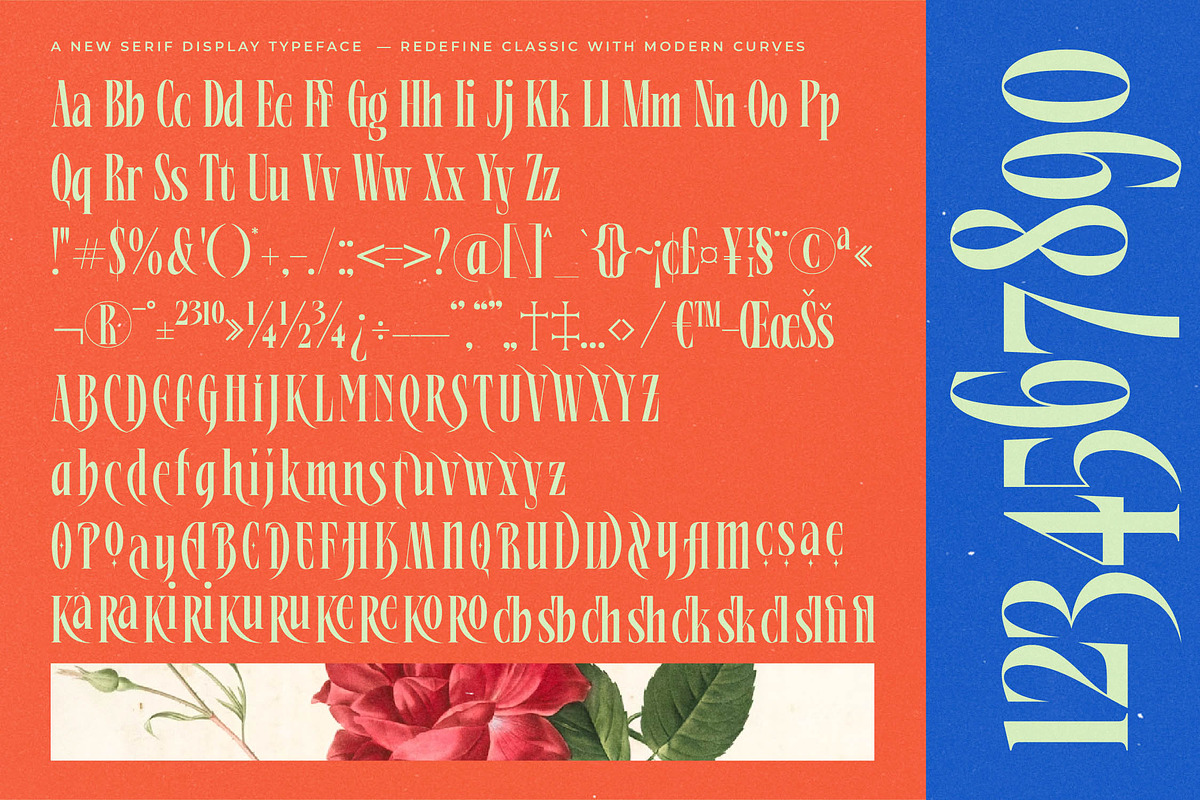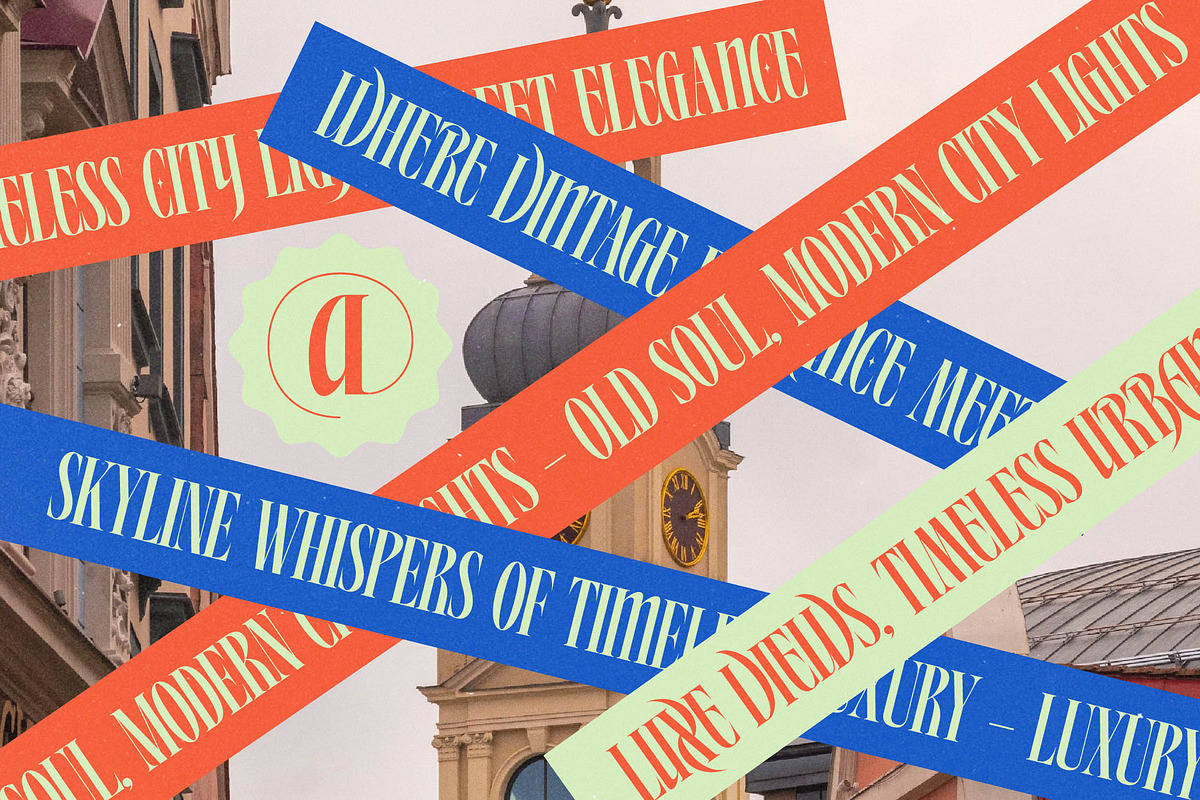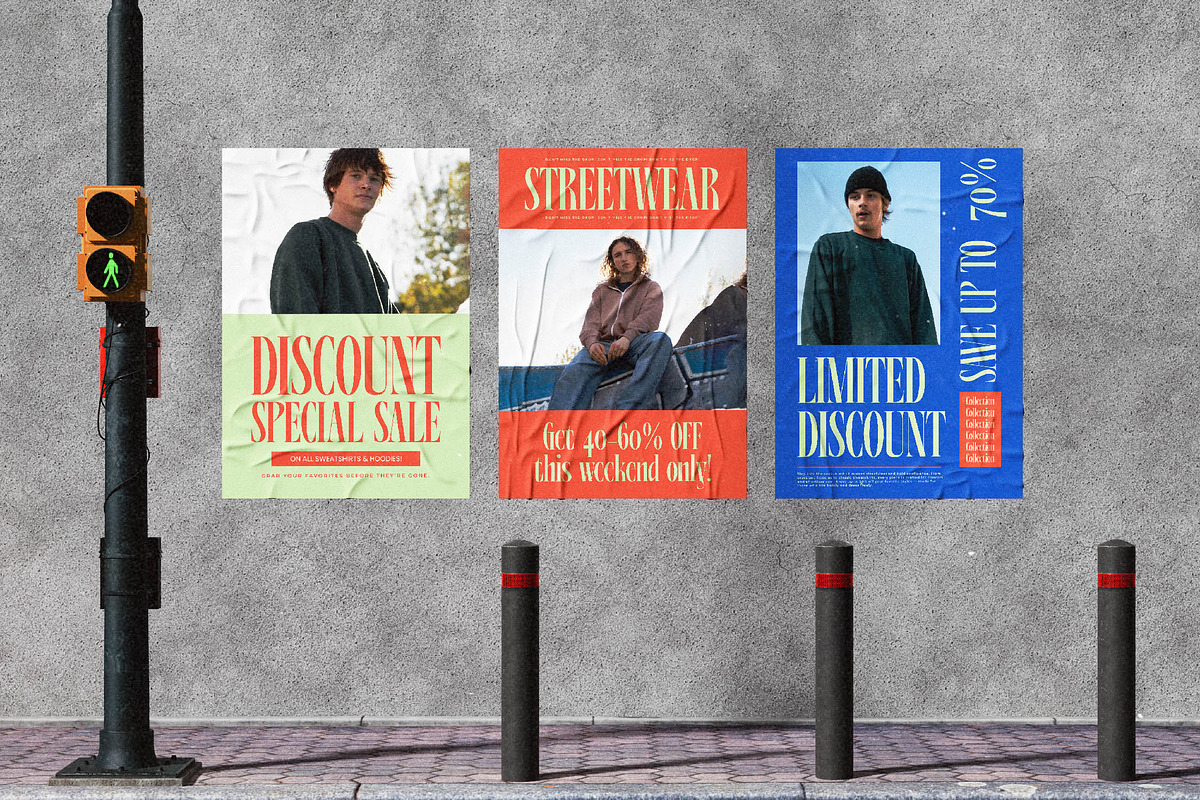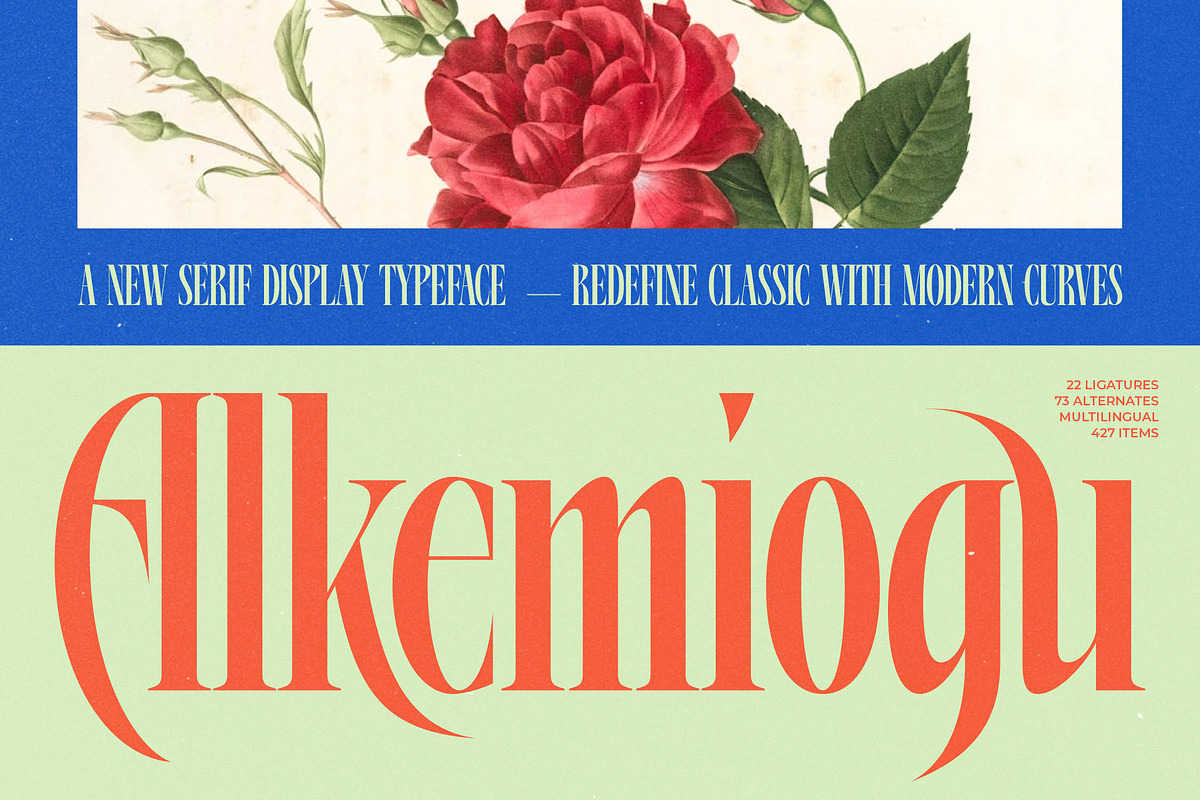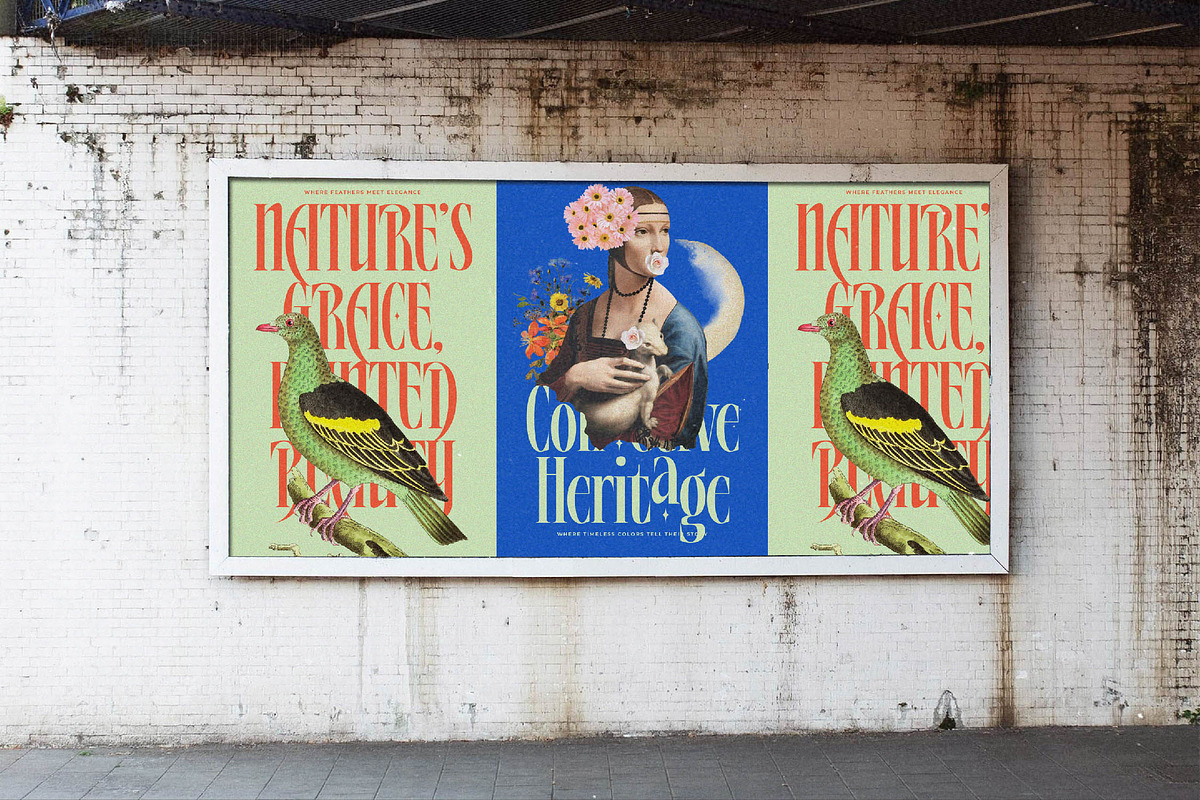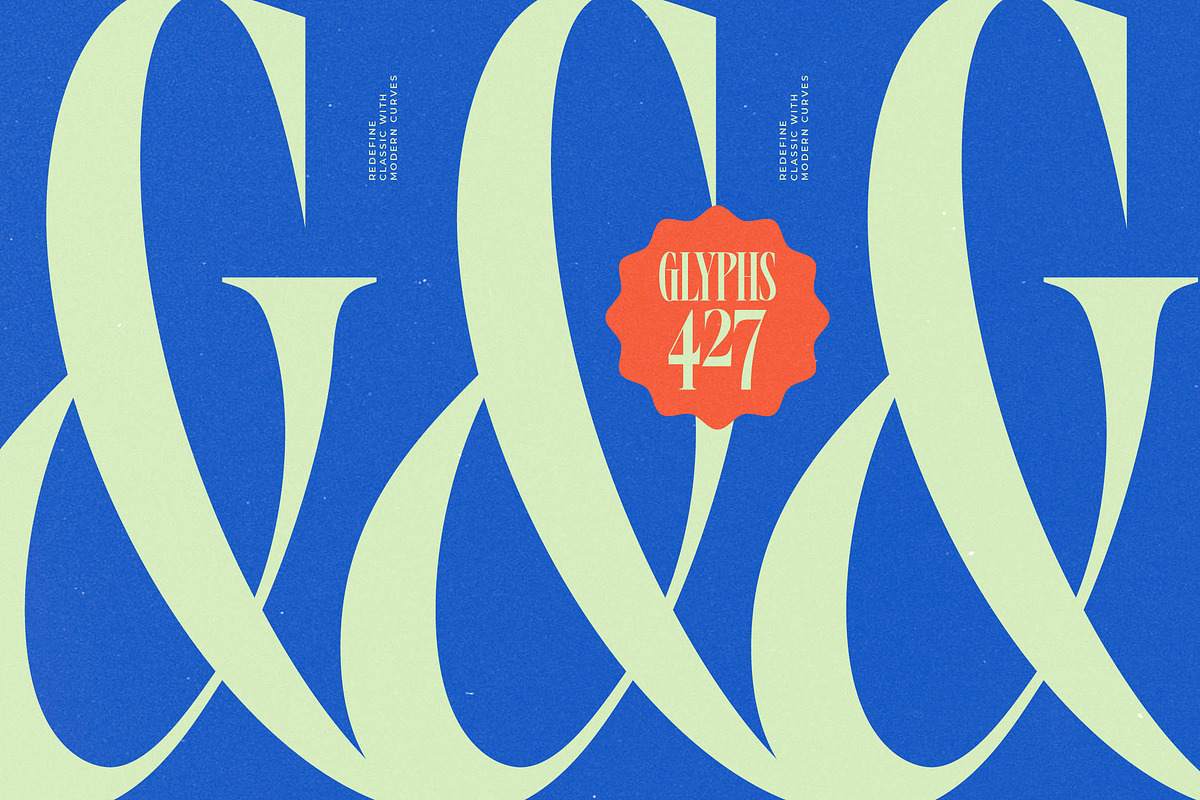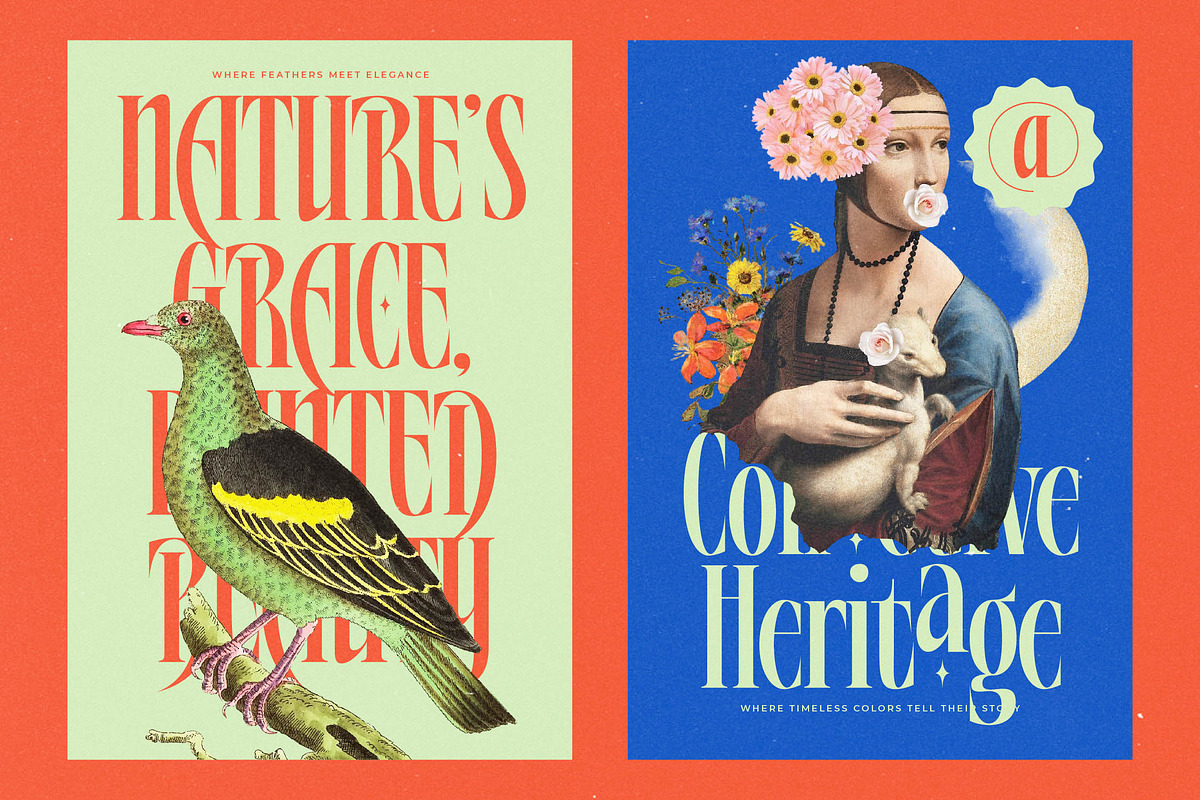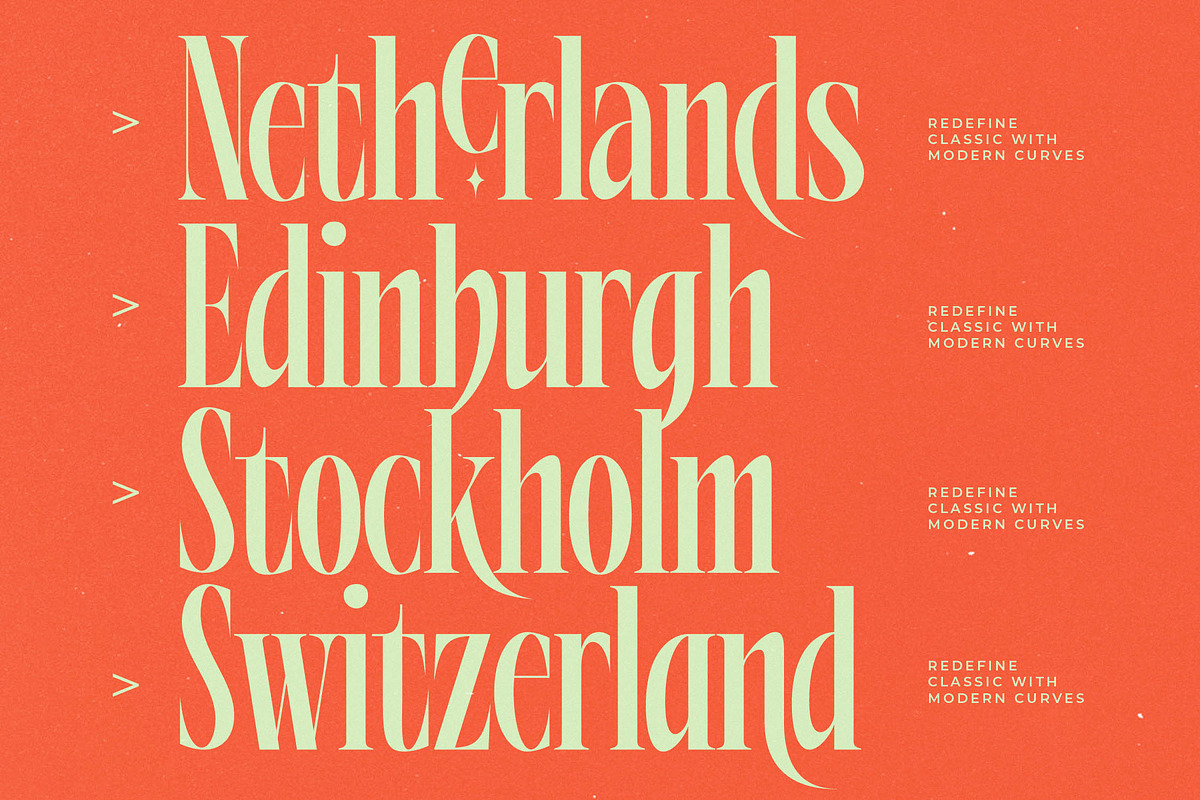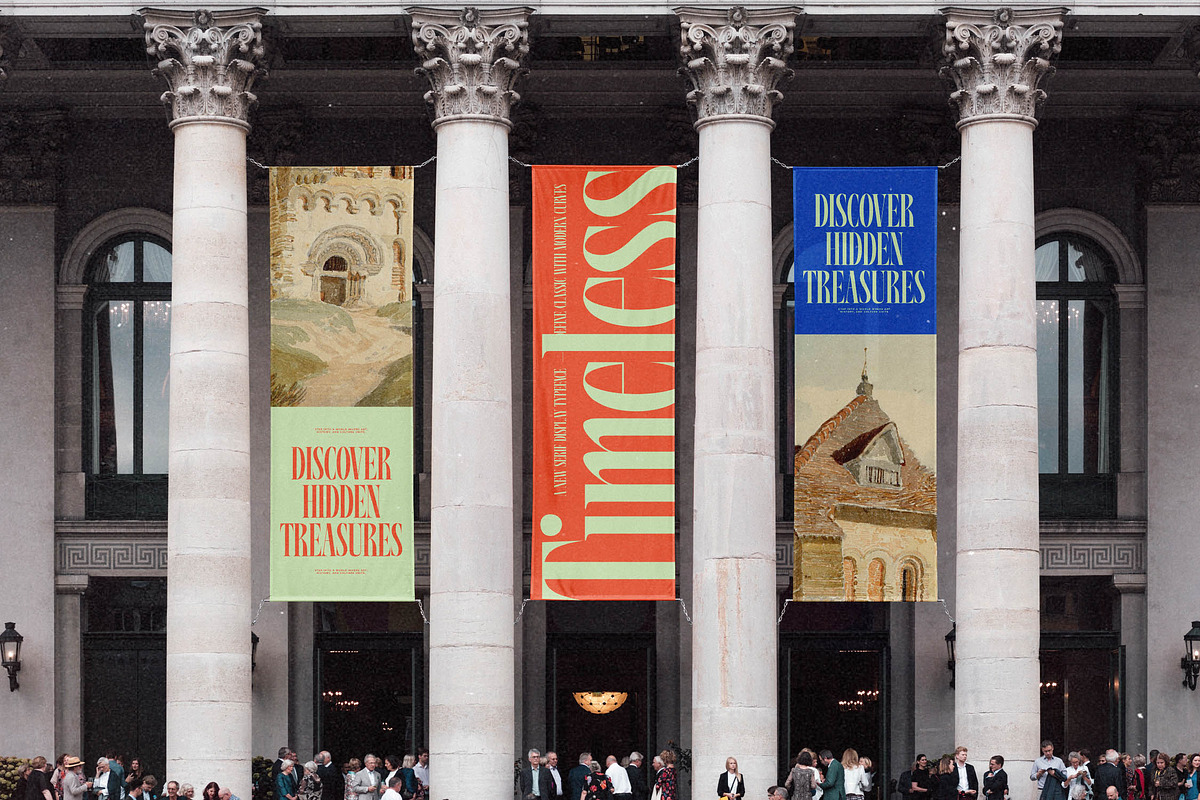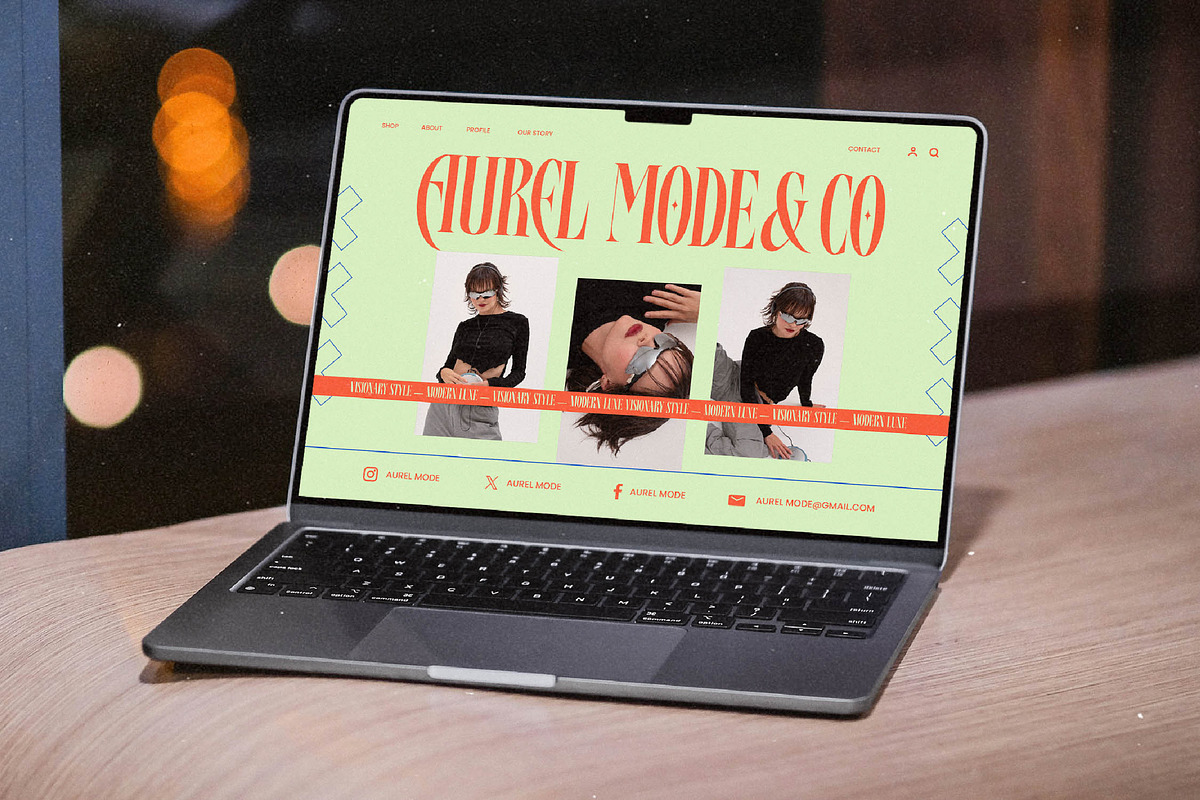
Alkemiogu Modern Serif Display
Step into a world of refined elegance and artistic flair with Alkemiogu, a typeface designed to make a statement. This masterfully crafted font redefines classic proportions with modern curves, offering a sophisticated visual language for the discerning designer.
Drawing inspiration from the intricate beauty of botanical illustrations and the timeless structure of Renaissance typography, it creates an atmosphere of vintage luxury. It feels like a rediscovered alchemical secret, transforming standard layouts into evocative pieces of high art.
This modern serif display is a powerhouse for those seeking to create luxury typography with a distinct edge. Its high-contrast serif strokes and sharp terminals ensure an editorial font aesthetic that delivers a massive branding impact in any high-stakes environment.
Perfectly aligned with the current modern serif trend, this typeface is a staple for editorial display fonts libraries. It champions the move toward character-driven typography, allowing designers to break free from minimalist constraints and embrace a more expressive visual identity.
Whether you are focusing on high-end logo design or comprehensive branding systems, this font shines in editorial spreads and premium packaging. It is an ideal companion for wedding stationery and luxury fashion campaigns that require a touch of modern drama.
This professional package features 22 ligatures, 73 alternates, and decorative swashes for bespoke character styling. Complete with multilingual support and 427 international characters, it provides the technical depth required for global creative projects.